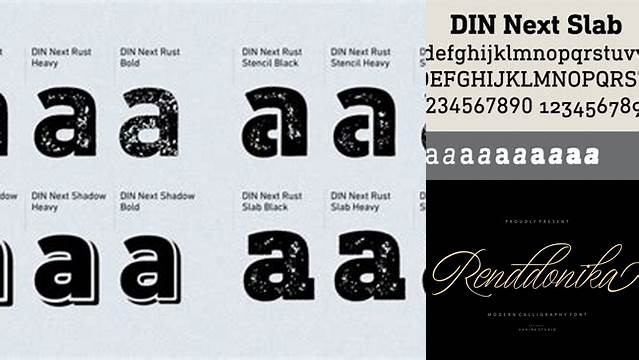
DIN Next Shadow Font Free Download Guide
Are you on the hunt for a super cool font that can give your designs a serious boost? Well, look no further, because we're diving headfirst into the awesome world of DIN Next Decorative Pro Shadow Heavy font! This font family is a real game-changer, offering a unique blend of style and readability. And the best part? You can find a DIN Next Decorative Pro Shadow Heavy font free download to get started! In this article, we'll explore everything you need to know about this fantastic font, from its features and uses to where you can snag a free download. So, buckle up, guys, because we're about to embark on a font adventure!
1. Unveiling the Majesty of DIN Next Decorative Pro Shadow Heavy Font
Hey everyone, let's start with the basics: what exactly is the DIN Next Decorative Pro Shadow Heavy font? This font is a member of the DIN Next family, known for its clean, modern, and highly legible design. The 'Decorative Pro Shadow Heavy' version takes things up a notch by adding a shadow effect, giving your text a three-dimensional look that's perfect for making a statement. Imagine the kind of impact you can create with this font! The heavy weight adds boldness, making it ideal for headlines, titles, and any design element that needs to grab attention. Whether you're creating posters, logos, website banners, or social media graphics, this font offers a versatile and eye-catching solution. The versatility doesn't stop there – it can be used in both digital and print formats. The shadow effect isn't just for aesthetics; it also enhances readability, particularly when your text is placed over images or backgrounds with complex textures. This is what makes the font an excellent choice for various design projects. The pro version includes a range of features and refinements that enhance the overall user experience. This often includes additional glyphs, ligatures, and stylistic sets that expand your creative options. Think about how you can use this font in different design scenarios; from creating a powerful brand identity to designing engaging marketing materials, the DIN Next Decorative Pro Shadow Heavy font gives you the tools to make a strong visual impact. The attention to detail in the font's design ensures that it looks professional and polished in any application. The shadow effect is meticulously crafted to work with the other characters, resulting in a visually cohesive appearance. The visual balance and harmony it brings to your designs set it apart. So, get ready to elevate your design game!
2. Diving Deep into the Features and Characteristics of DIN Next Decorative Pro Shadow Heavy Font
Alright, let's get into the nitty-gritty of what makes the DIN Next Decorative Pro Shadow Heavy font such a winner. This font isn't just about the shadow; it's packed with features that make it a top choice for designers everywhere. First off, the shadow effect adds depth and dimension, making your text pop off the page. It's like giving your words a cool 3D makeover! The heavy weight of the font ensures that your text stands out, making it perfect for attention-grabbing headlines and titles. This feature is a fantastic asset when you need to communicate a message clearly and powerfully. The font's clean lines and modern aesthetic make it incredibly versatile. Whether you're working on a sleek website design or a bold print advertisement, this font adapts perfectly. It's also highly legible, meaning your audience can easily read your message, even at smaller sizes. Now, let's talk about the 'Pro' in the name. The 'Pro' version typically includes a wider range of glyphs, ligatures, and stylistic sets. This means you get more options to customize your text, giving you the freedom to express your creativity. The support for various languages is a huge plus. The DIN Next Decorative Pro Shadow Heavy font often supports multiple languages, ensuring that your designs can reach a global audience. The font is optimized for both digital and print use, allowing you to create consistent designs across all platforms. From screen displays to printed materials, your text will always look its best. The kerning and spacing are meticulously crafted, ensuring that each character sits just right. This attention to detail enhances the overall readability and visual appeal of your designs. The font's characteristics make it an excellent choice for creating visually dynamic content. Consider the possibilities: from website headers and promotional graphics to print materials and social media posts, the DIN Next Decorative Pro Shadow Heavy font provides the perfect blend of style, readability, and versatility. It's a powerhouse font designed to make your work shine!
4. Unleashing Creativity: Best Uses and Applications of DIN Next Decorative Pro Shadow Heavy Font
Now that you've got your hands on this amazing font, let's explore the best ways to use the DIN Next Decorative Pro Shadow Heavy font! This font is super versatile, making it a great fit for a variety of projects. First off, this font shines in headlines and titles. The shadow effect and heavy weight make your text really pop, grabbing the viewer's attention instantly. This is perfect for website headers, blog post titles, and social media graphics. Secondly, it's awesome for logos. The font's unique style makes it stand out from the crowd. It's great for brands that want to project a modern and bold image. Another great use is in posters and flyers. If you’re looking to create eye-catching promotional materials, this font is a fantastic choice. It works well for event posters, advertising campaigns, and informational flyers. In website design, the DIN Next Decorative Pro Shadow Heavy font can be used in various ways. It can be used for headings, subheadings, and call-to-action buttons. The clear, bold style makes your website more appealing and user-friendly. For branding, it's excellent for creating a consistent visual identity. The font can be used across your website, marketing materials, and social media channels. Make sure your branding is unique and memorable. Social media graphics are another great application. It's perfect for creating engaging social media posts, ads, and banners. Your posts will look professional and polished. The font can also be used in print design. It can be used in brochures, magazines, and other printed materials. Your printed materials will leave a lasting impression. In short, the DIN Next Decorative Pro Shadow Heavy font is a great tool for any designer. The key is to be creative and experiment with different applications to see what works best for your projects!